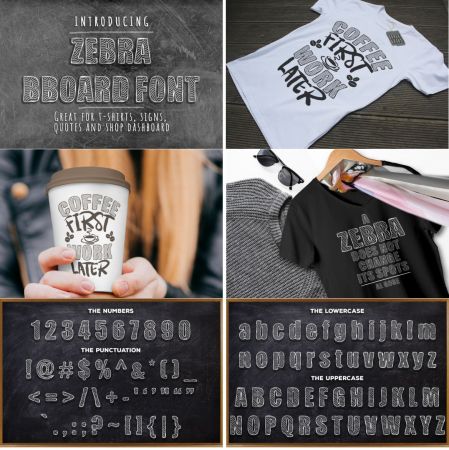
DesignOptimal - Zebra BBoard Font
Zebra BBoard inspired by the animal of the same name, Zebra BBoard is a stunning display font with a bold twist. It will add a unique spark to any animal-themed project!